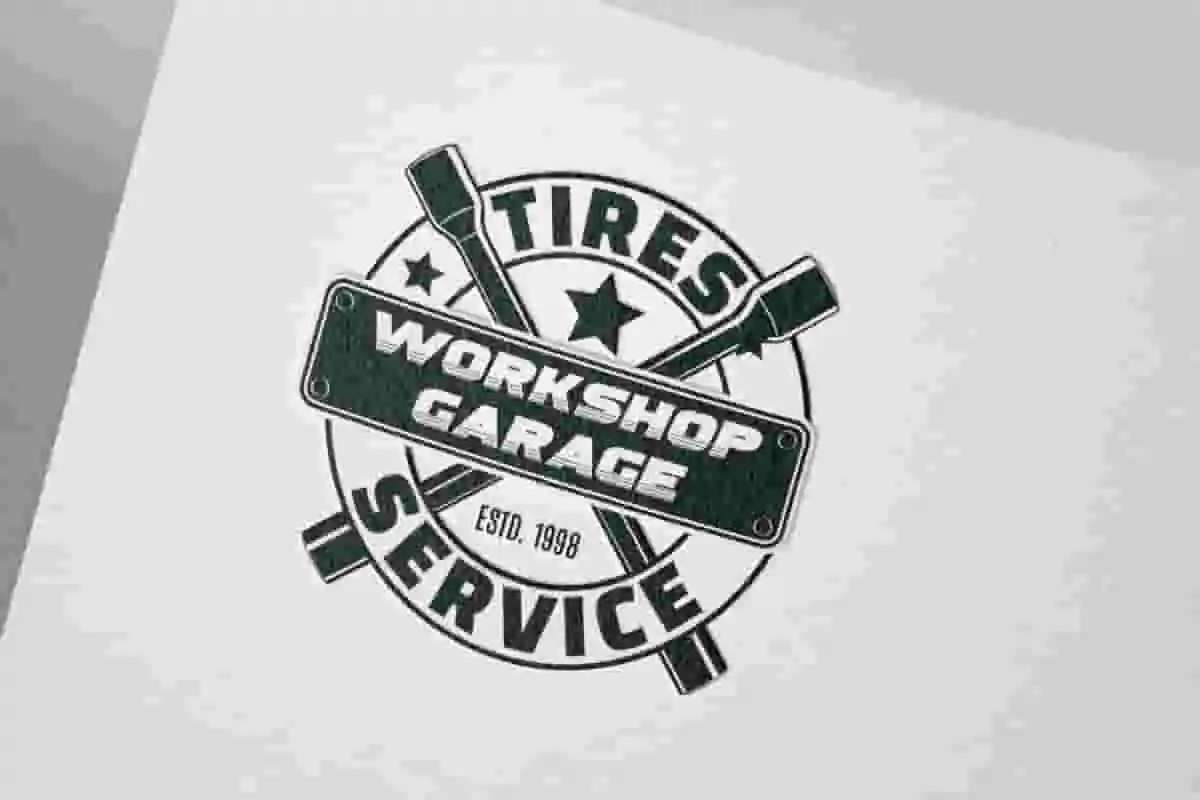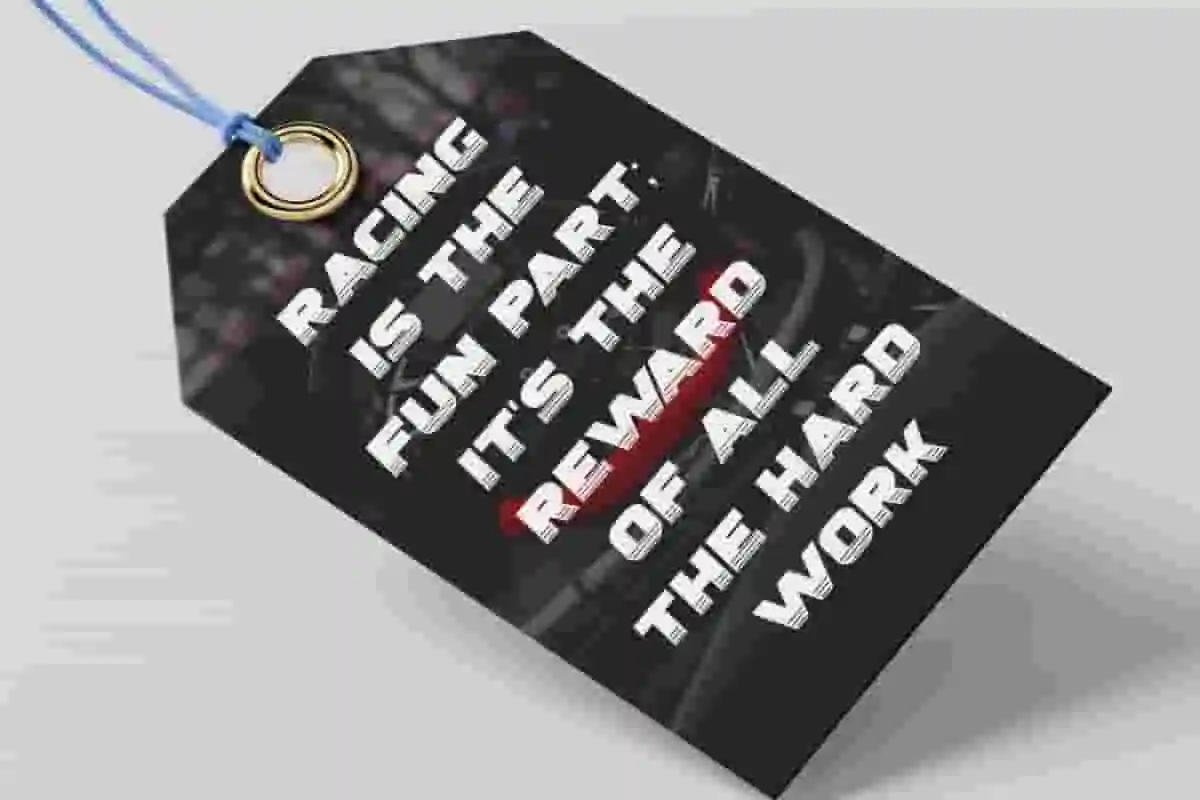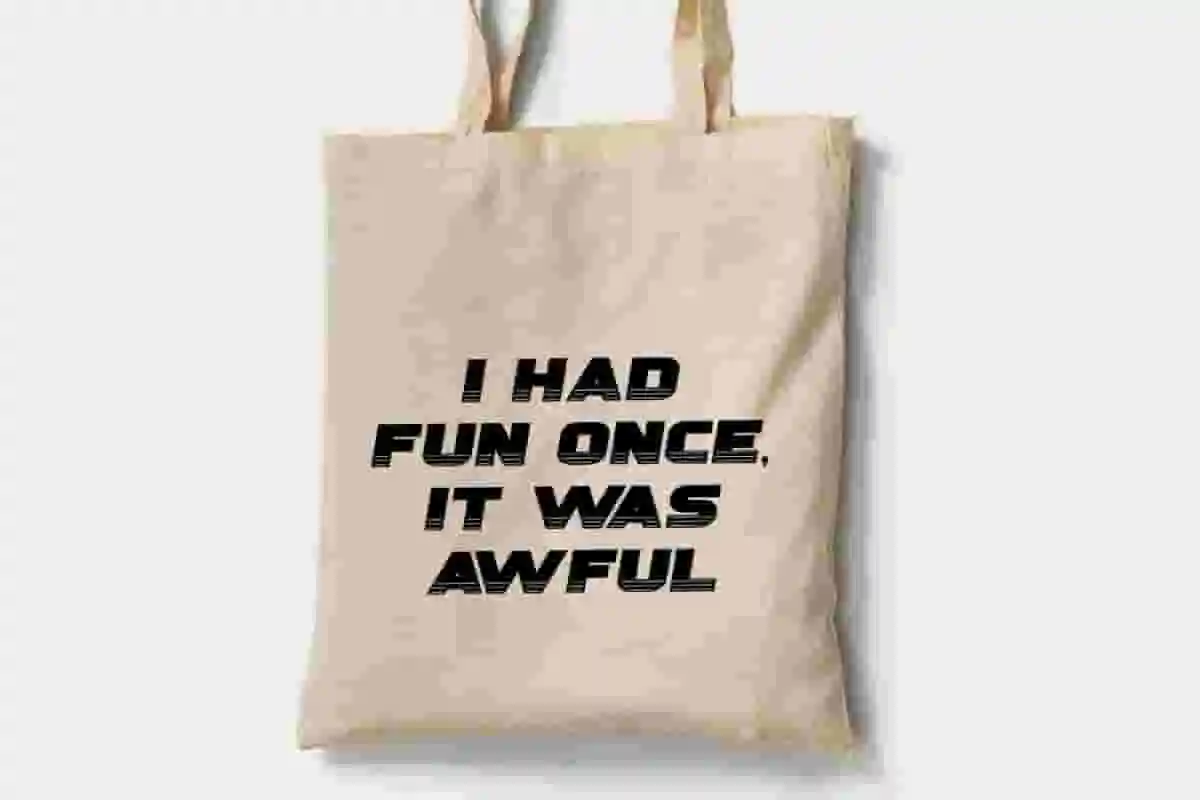
Weird Rider Font
Weird Rider Font is a cool modern racing display font by NoahType. This font has bold characters with additional lines at the bottom of the letters. This font will be suitable for a lot of projects, such as custom design, stationery, label, poster, signage, catalog, cover, quotes, website, and more!
Weird Rider Font includes full set of Uppercase and Lowercase Basic Characters, Numerals and Punctuation. This font has a cool vibes that will make you believe it is the perfect choice for many industries, such as fashion, sports, racing, game, automotive, advertisement, café, event organizer, printing, publishing, etc.